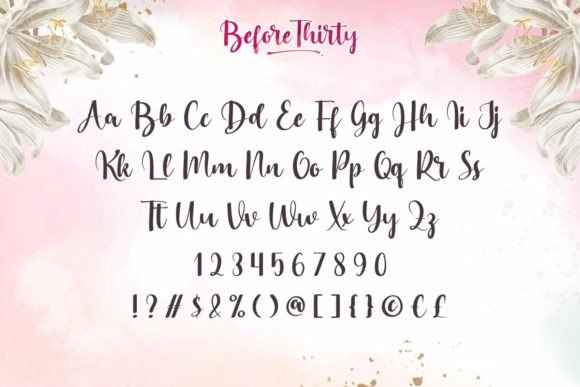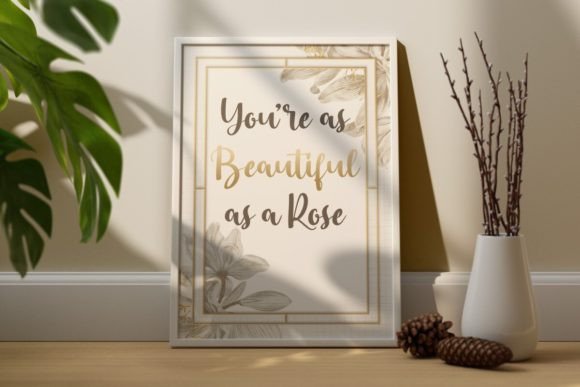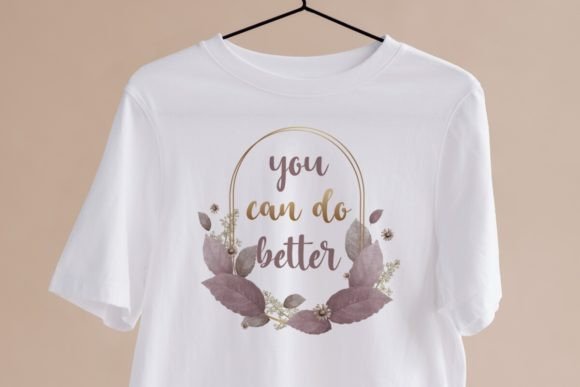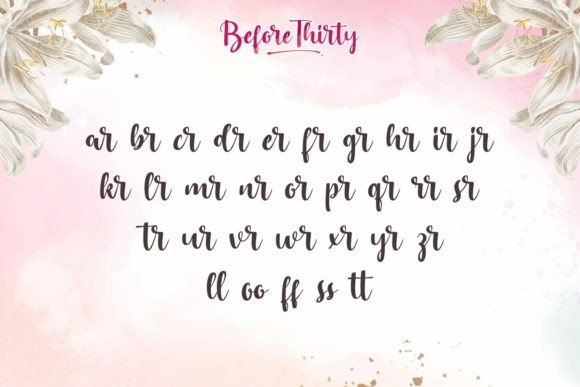
Introducing Before Thirty Font: Elevate Your Designs with Elegant Handwriting Style
In the world of typography, fonts play a crucial role in making or breaking a design. A well-chosen font can instantly elevate your project, making it more visually appealing and engaging. If you’re a designer, craftsperson, or simply someone who appreciates beautiful typography, you’re in luck! Before Thirty Font is a stunning script font that embodies the fluidity and charm of handwriting, perfect for adding a personal touch to your creations.
The Beauty of Before Thirty Font
Before Thirty Font is a beautiful script font with a handwriting style that exudes elegance and sophistication. The lines in this font flow smoothly and beautifully, giving it an eye-catching look that’s sure to grab attention. The fluid strokes and subtle variations in line width create a sense of movement and energy, making it perfect for designs that require a touch of personality.
One of the best things about Before Thirty Font is its versatility. This font can be used across a wide range of projects, from business cards and flyers to invitations, labels, packaging design, quotes, screen printing, signage, and websites. Whether you’re working on a personal project or a client’s, Before Thirty Font is sure to make your design stand out.
Before Thirty Font is a dream come true for designers and crafters who value unique and high-quality typography. With this font, you can add a touch of elegance and sophistication to your designs, making them more appealing to your audience. Whether you’re creating digital content or physical products, Before Thirty Font is the perfect choice for anyone looking to elevate their design game.
Why Choose Before Thirty Font?
So, why choose Before Thirty Font over other fonts? Here are just a few reasons:
- Unique and eye-catching design: Before Thirty Font has a distinctive handwriting style that’s sure to grab attention.
- High-quality typography: This font is designed with precision and care, ensuring that it looks great in any context.
- Versatile: Before Thirty Font can be used across a wide range of projects, from digital content to physical products.
Tips for Using Before Thirty Font
To get the most out of Before Thirty Font, here are a few tips:
- Use it sparingly: While Before Thirty Font is beautiful, it’s best used sparingly to avoid overwhelming your design.
- Pair it with other fonts: Experiment with pairing Before Thirty Font with other fonts to create a unique and visually appealing combination.
- Adjust the size and color: Play around with different sizes and colors to find the perfect combination for your design.
In conclusion, Before Thirty Font is a stunning script font that can elevate your designs and add a touch of elegance and sophistication. With its unique handwriting style, versatility, and high-quality typography, this font is perfect for designers, crafters, and anyone looking to create beautiful and visually appealing content. So why wait? Download Before Thirty Font today and take your designs to the next level!